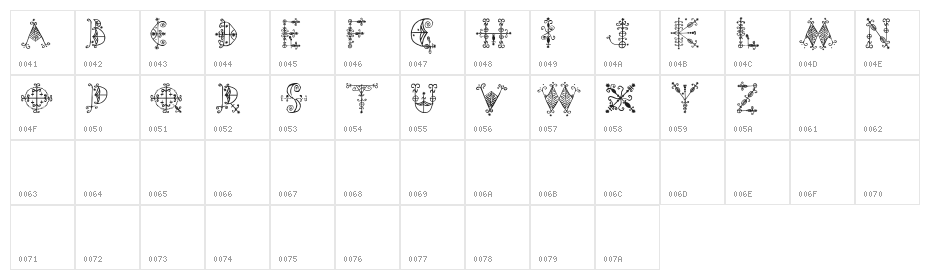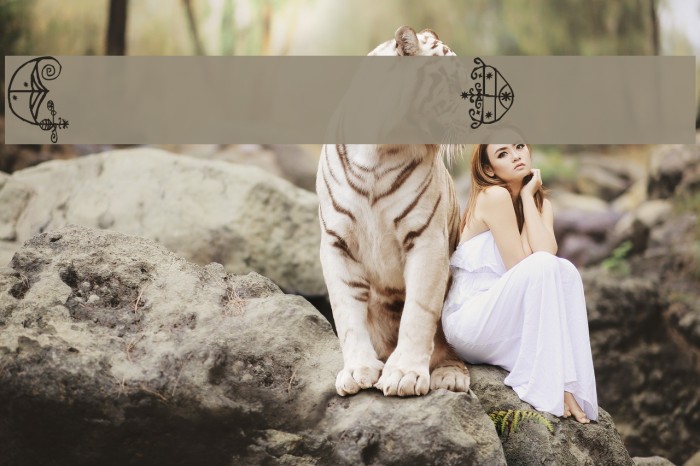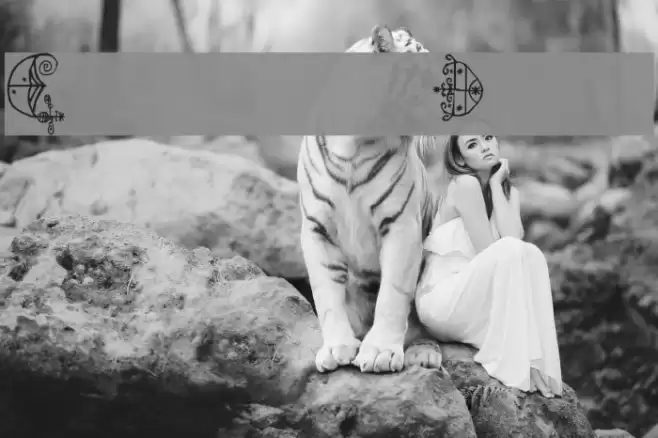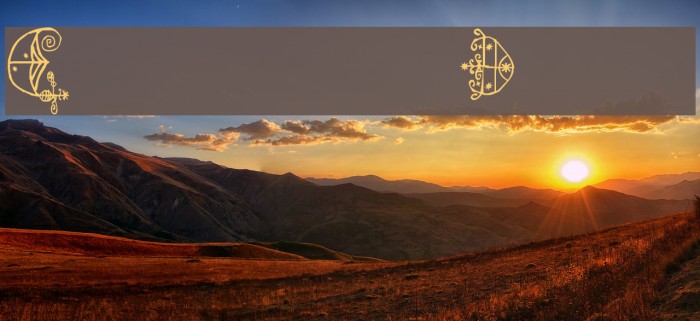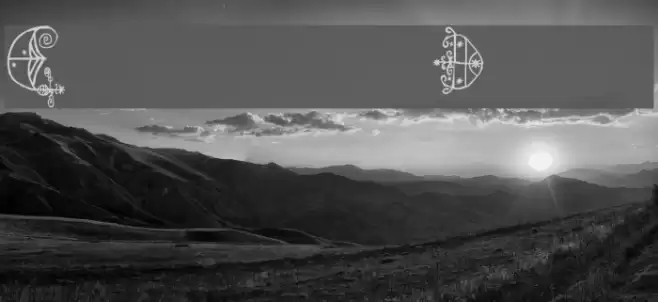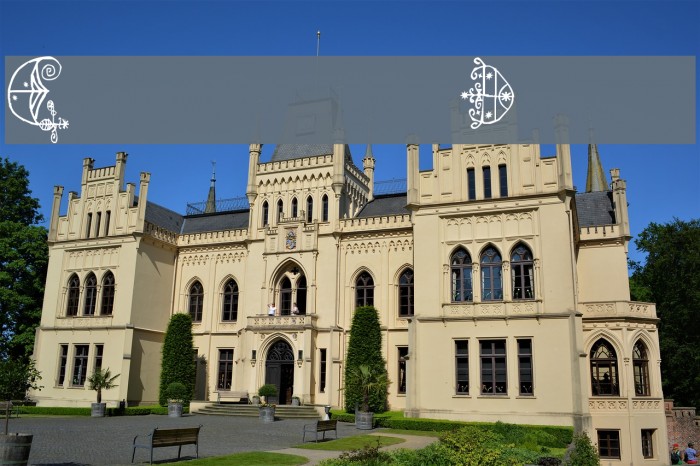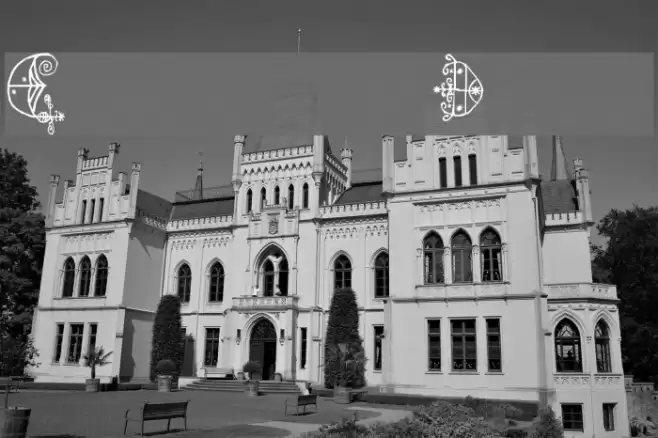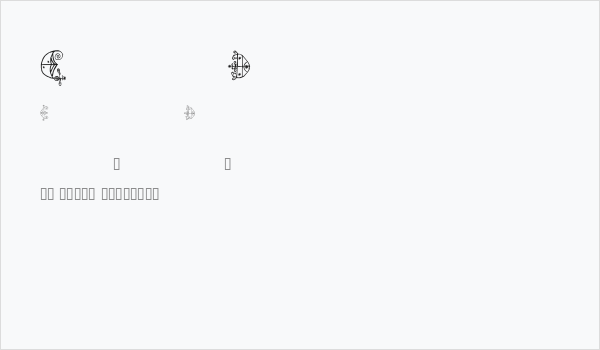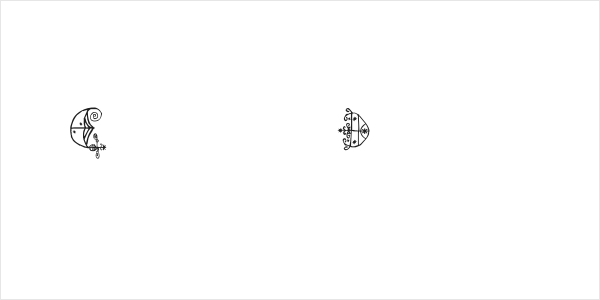
Guede Demo Font
Guede Demo Description
This font is a highly decorative and intricate design, featuring elaborate embellishments and flourishes on each letter. The uppercase letters are adorned with ornate details, including swirls, dots, and geometric patterns, creating a visually complex and artistic appearance. The style is reminiscent of vintage or baroque aesthetics, making it suitable for projects that require a touch of elegance and sophistication. The font's unique characteristics make it stand out, with each character being a piece of art in itself. This font is not suitable for body text due to its complexity but excels in decorative uses.
| Use Case | Logos, Headlines, Decorative purposes |
| Proposed Projects | Ideal for wedding invitations, event posters, branding for luxury products, or any project needing a sophisticated and artistic touch. |